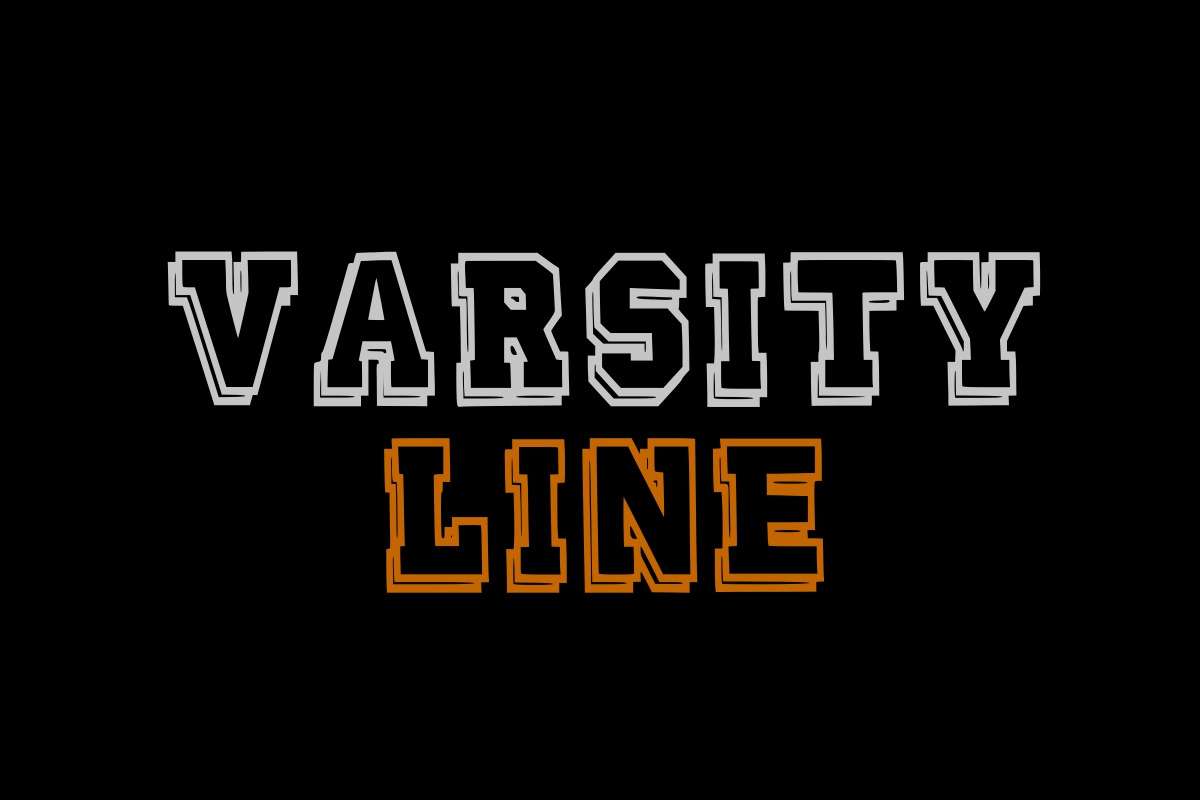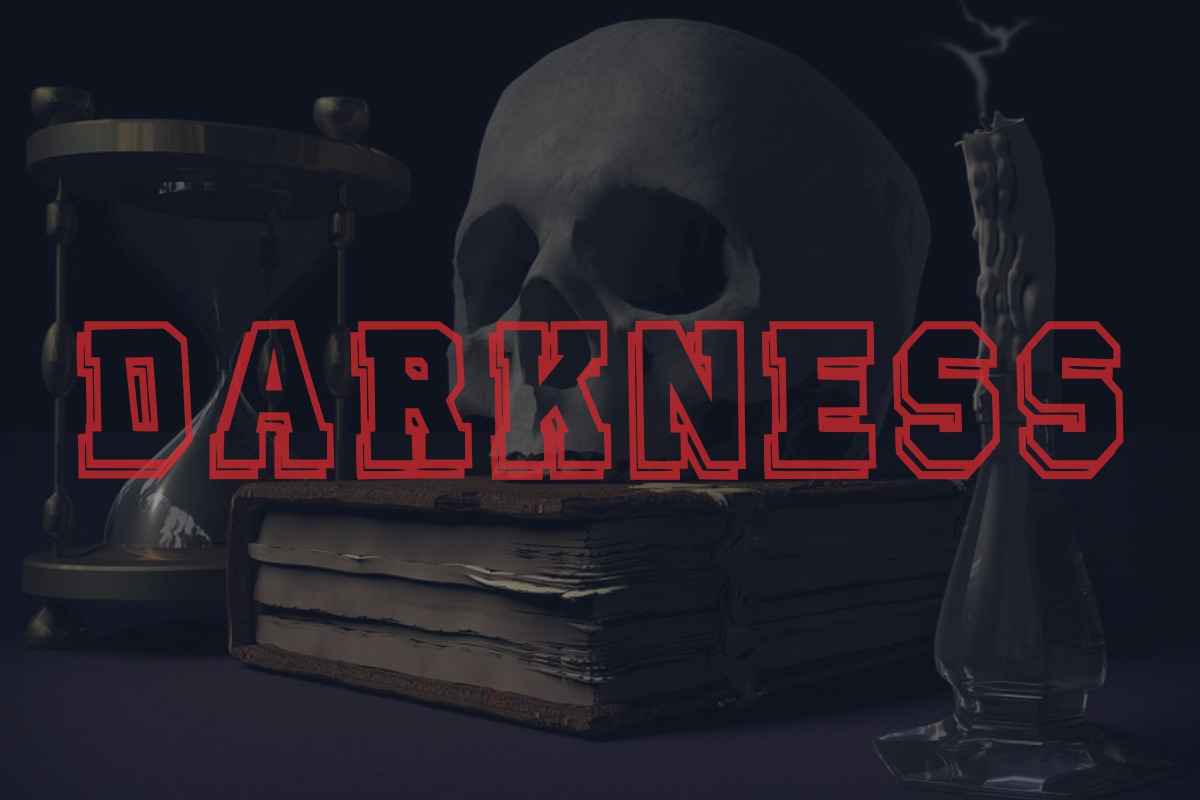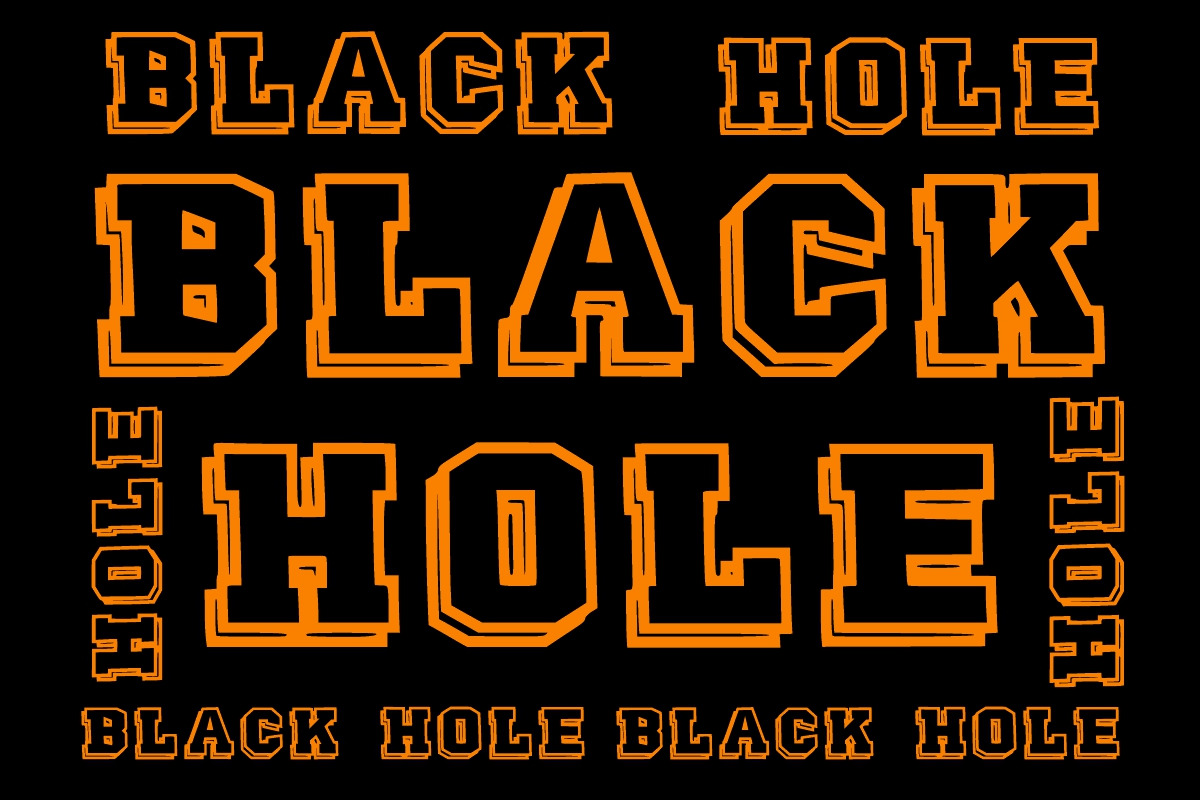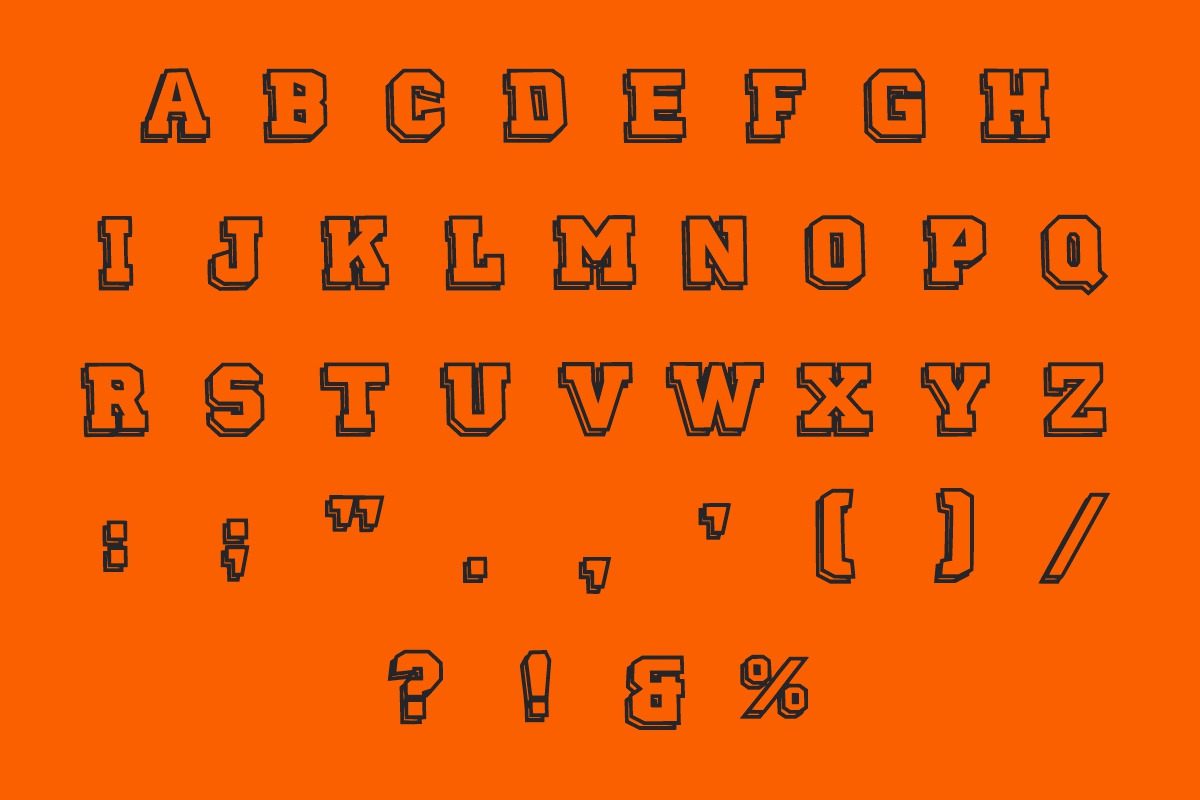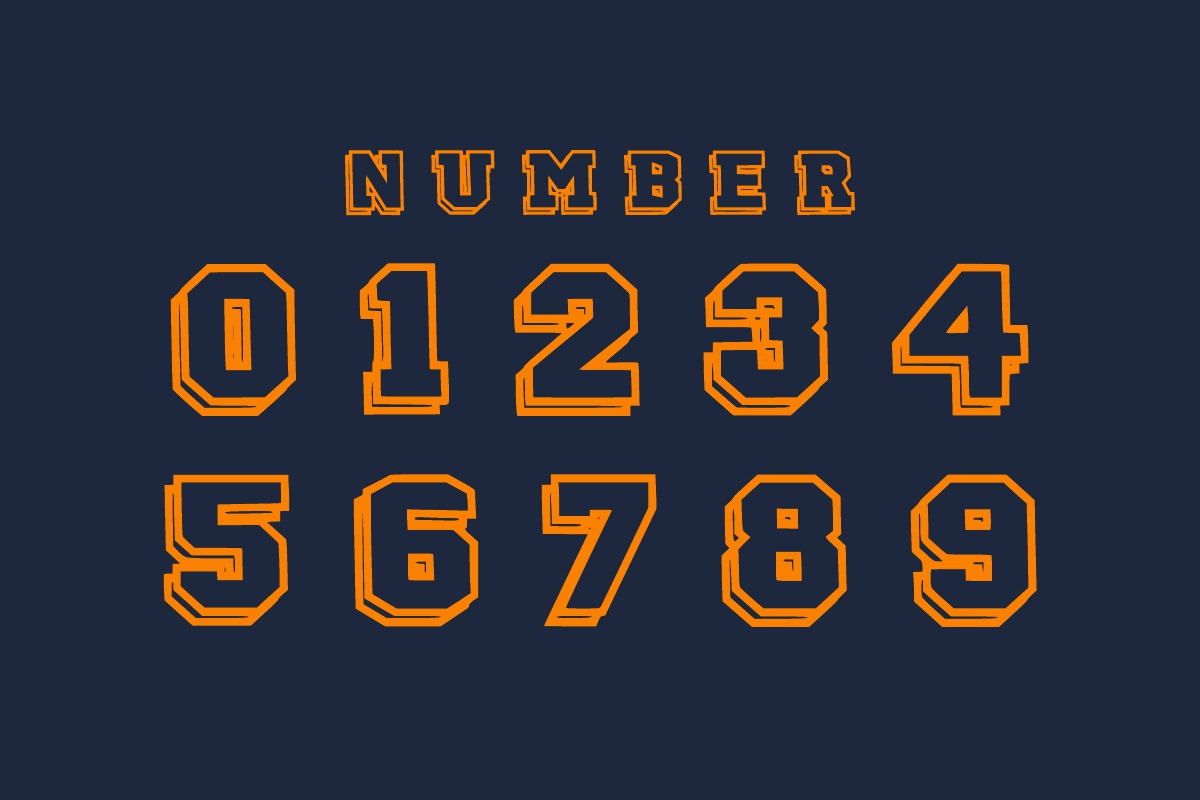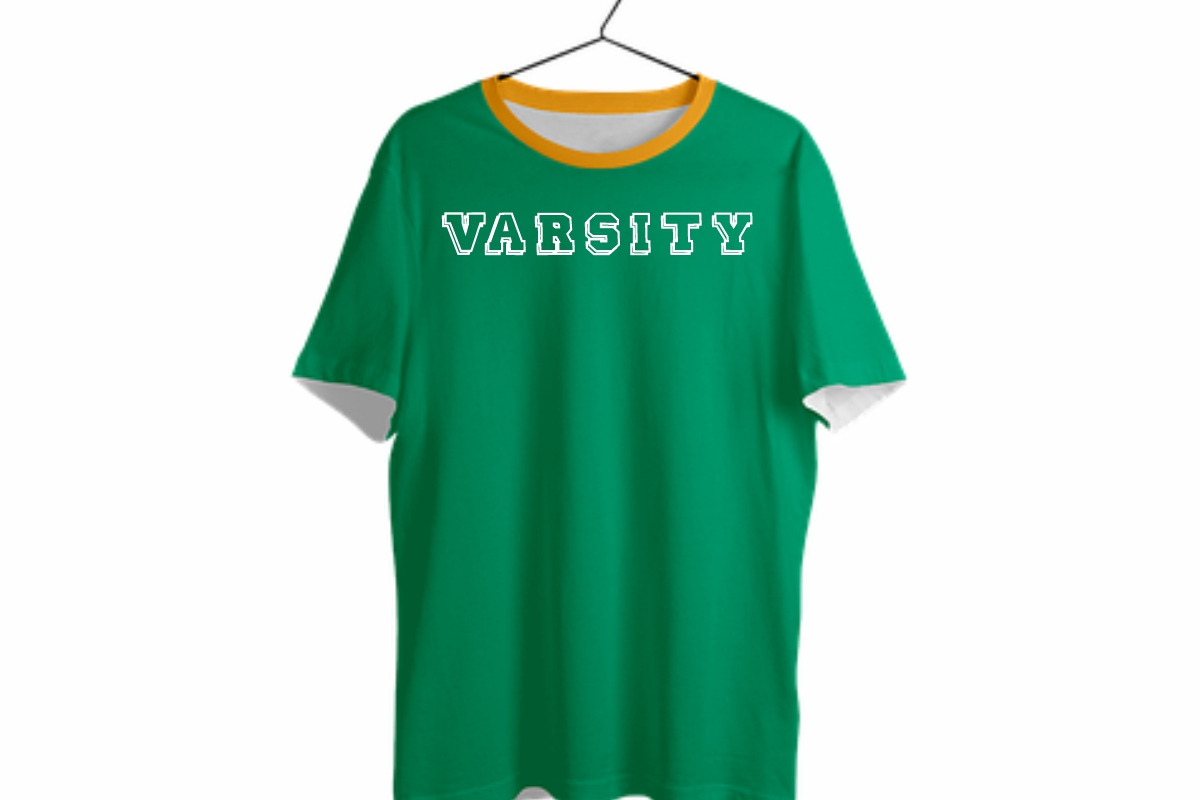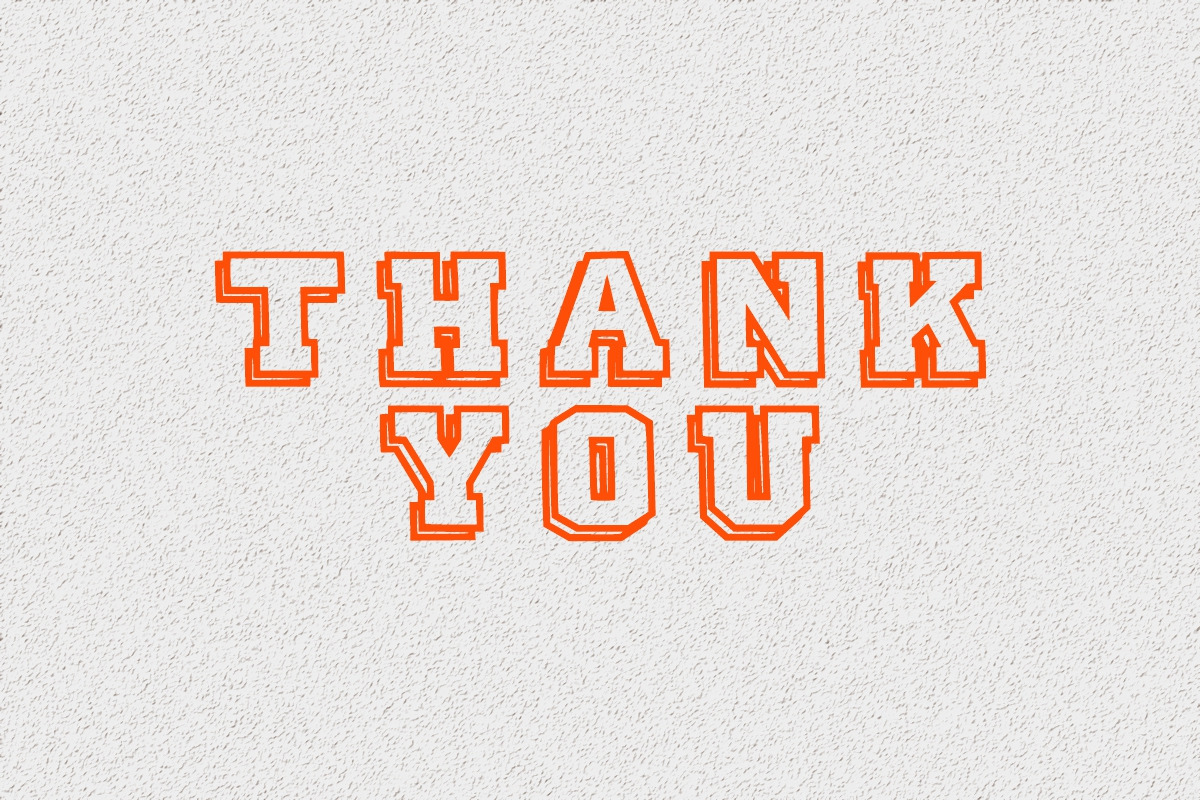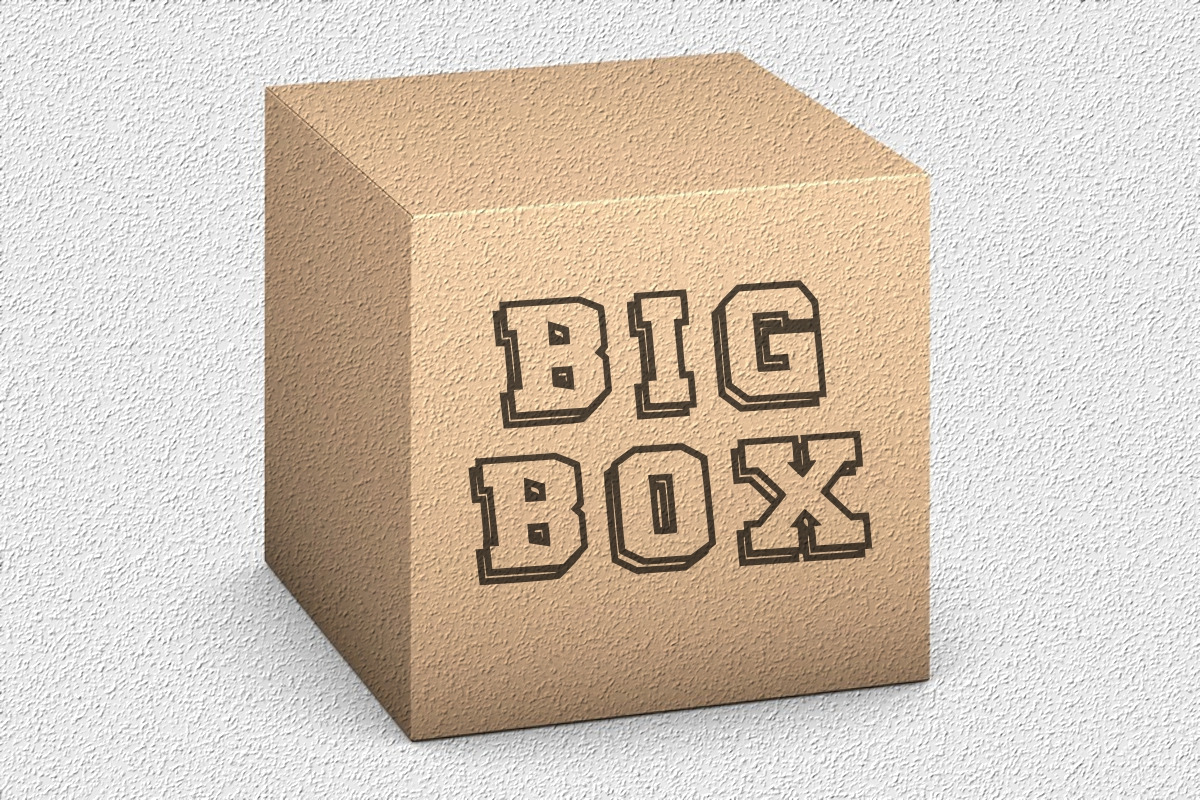
Hellboy
HELLBOY is a Line Font modern, outline display font. It is suitable for any winter and holiday branding project, product packaging, invitation, quote, t-shirt, label, poster, text effect, label, and logo that you wish to develop.